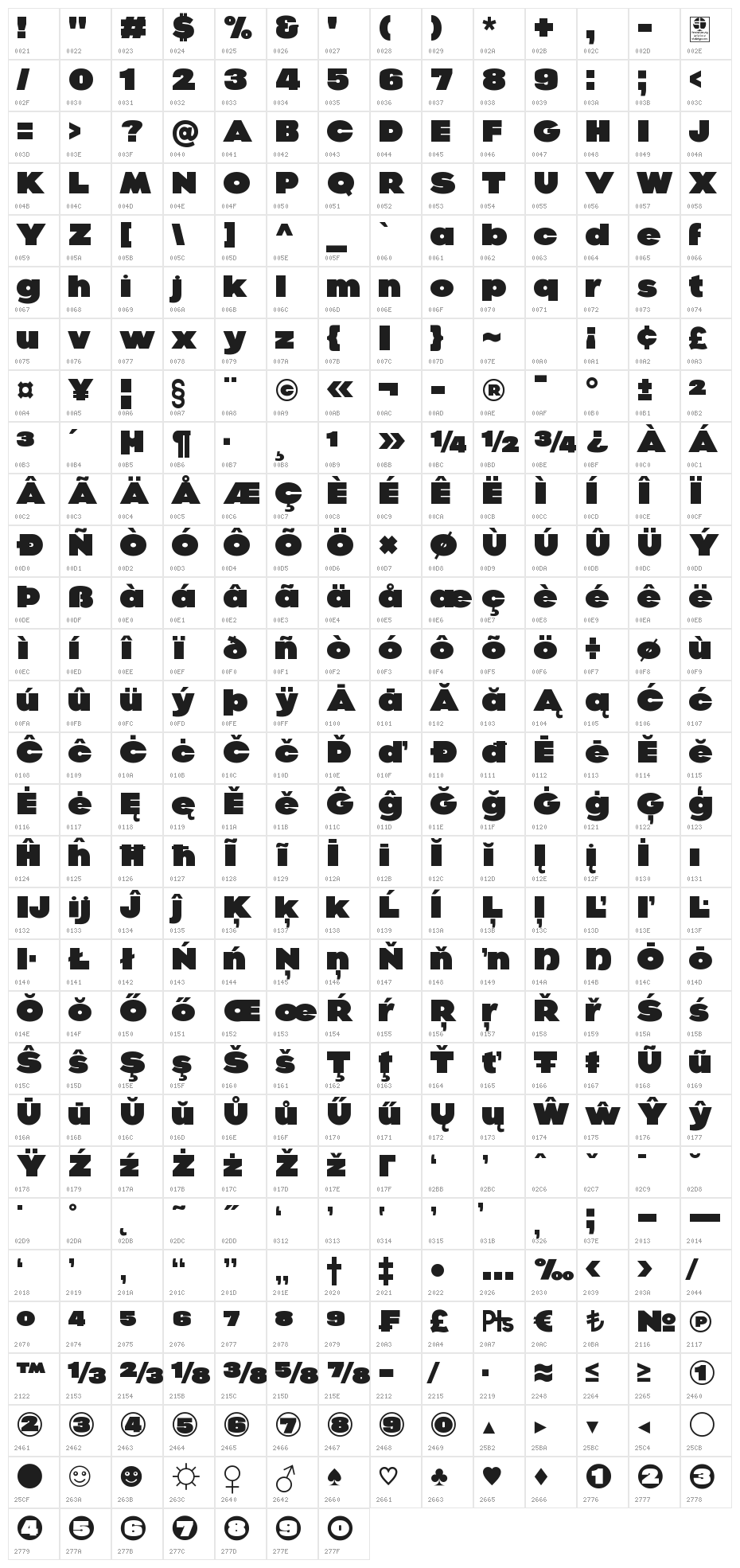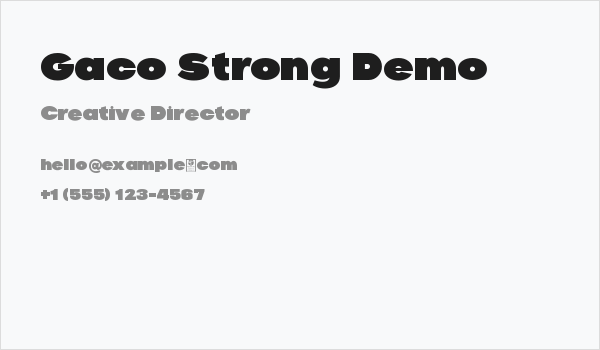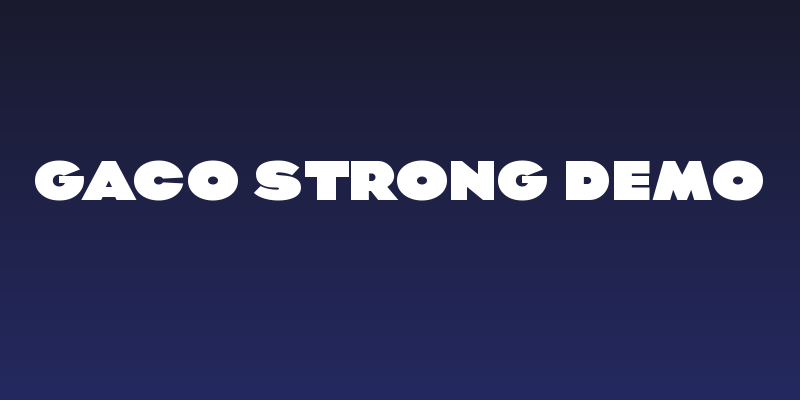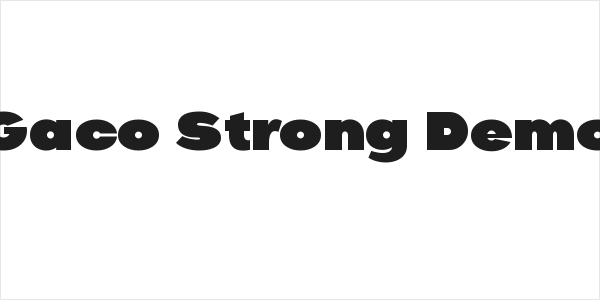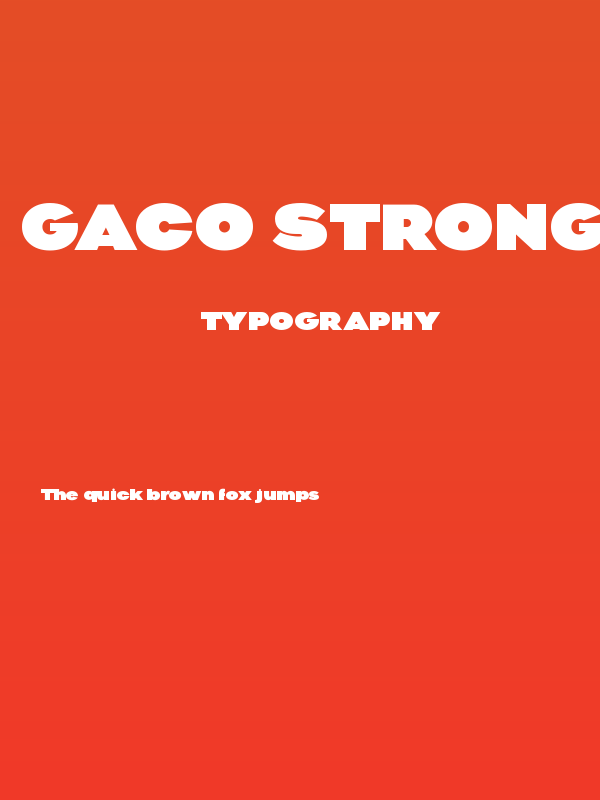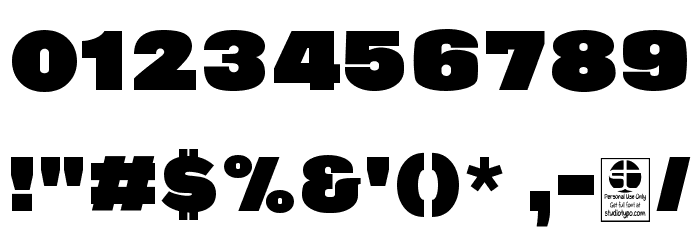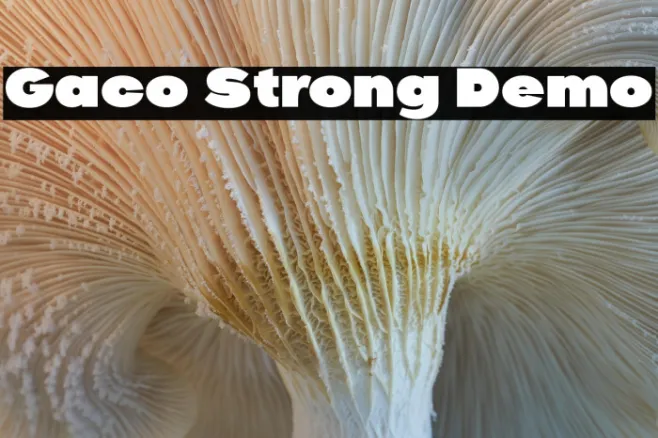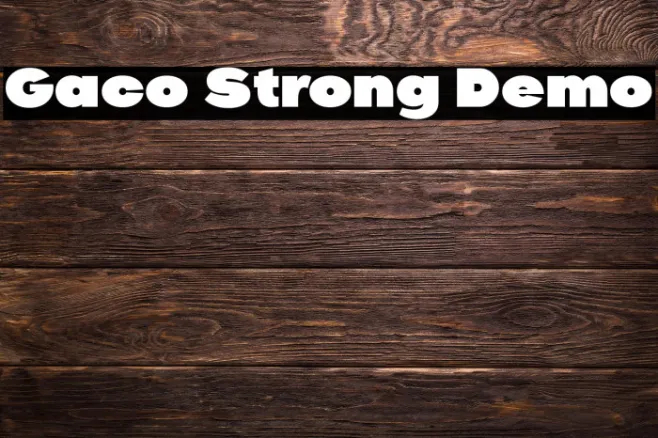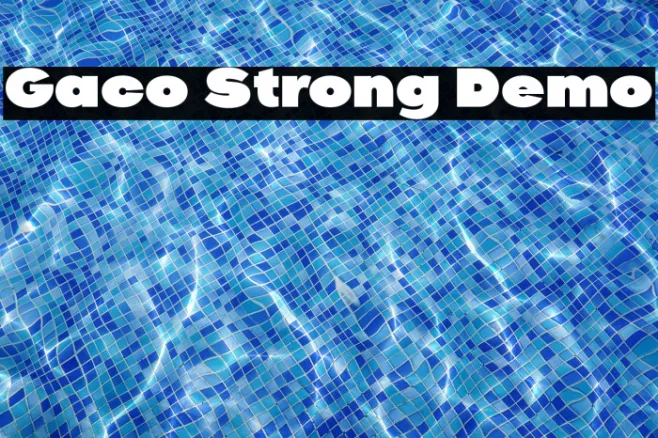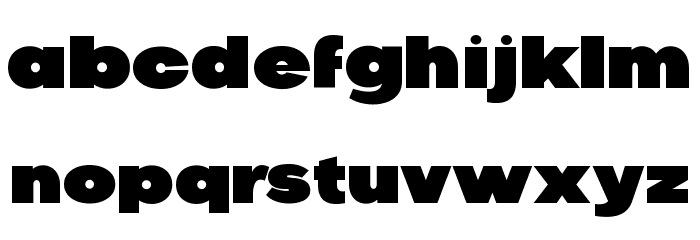
Gaco Strong Demo Font
Gaco Strong Demo Description
This font features a bold and impactful design, characterized by thick, heavy strokes and a strong presence. The uppercase and lowercase letters maintain a consistent weight, emphasizing a sense of stability and power. The numerals and special characters are equally robust, ensuring uniformity across all text elements. The overall appearance is modern and assertive, making it suitable for projects that require a commanding visual statement. The font's geometric shapes and clean lines contribute to its contemporary style, while the tight character spacing enhances its compact and solid look.
| Proposed Projects | Ideal for headlines, posters, branding, and any design requiring a bold statement. |